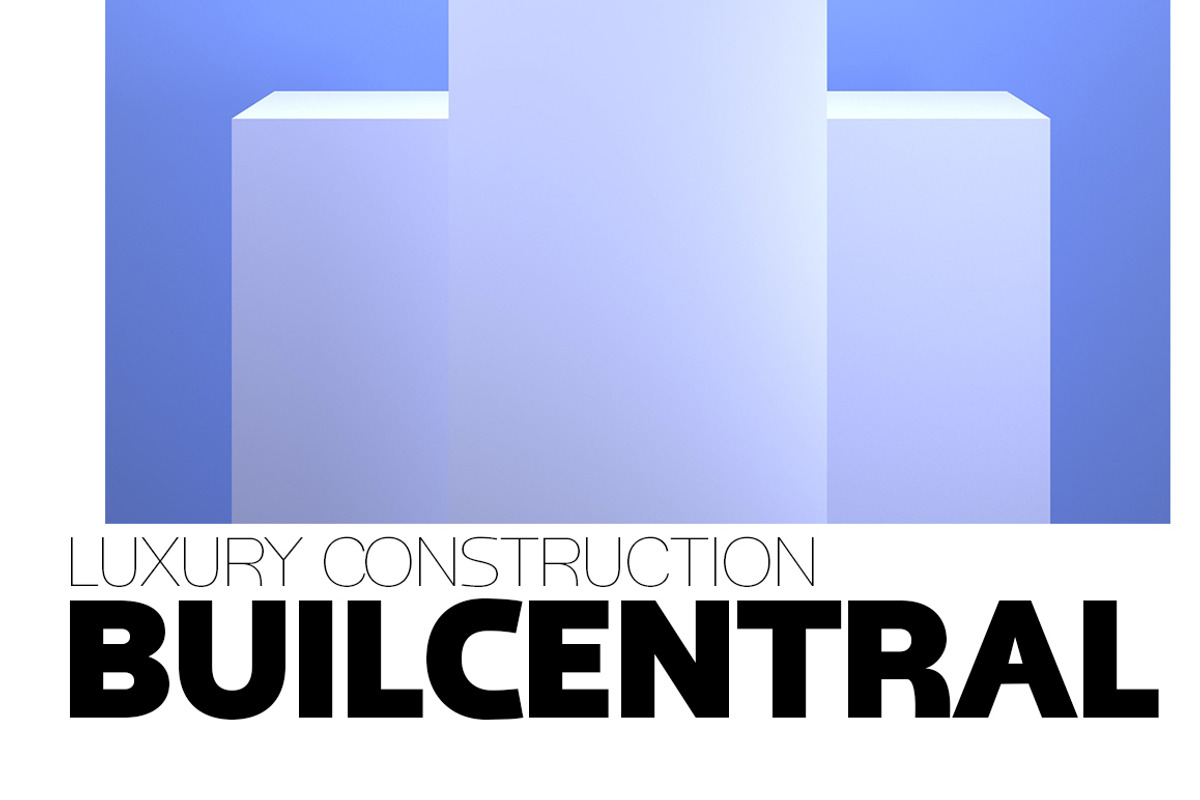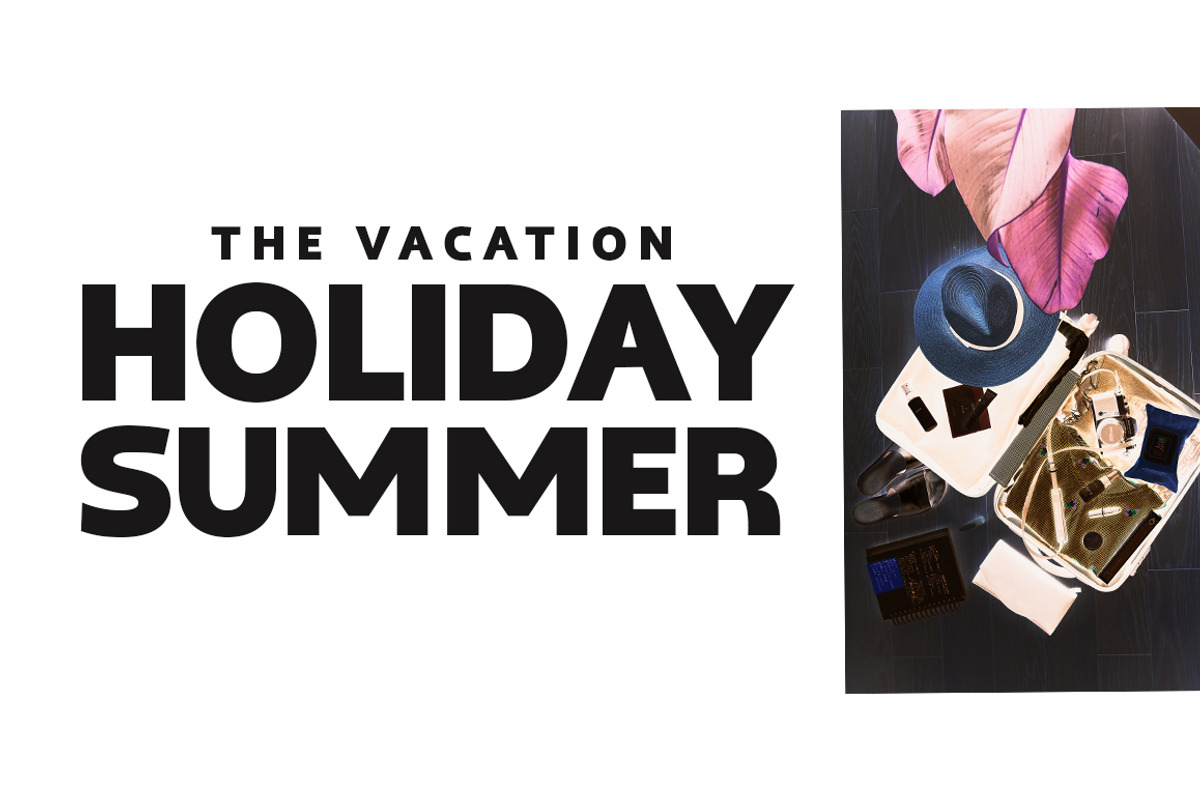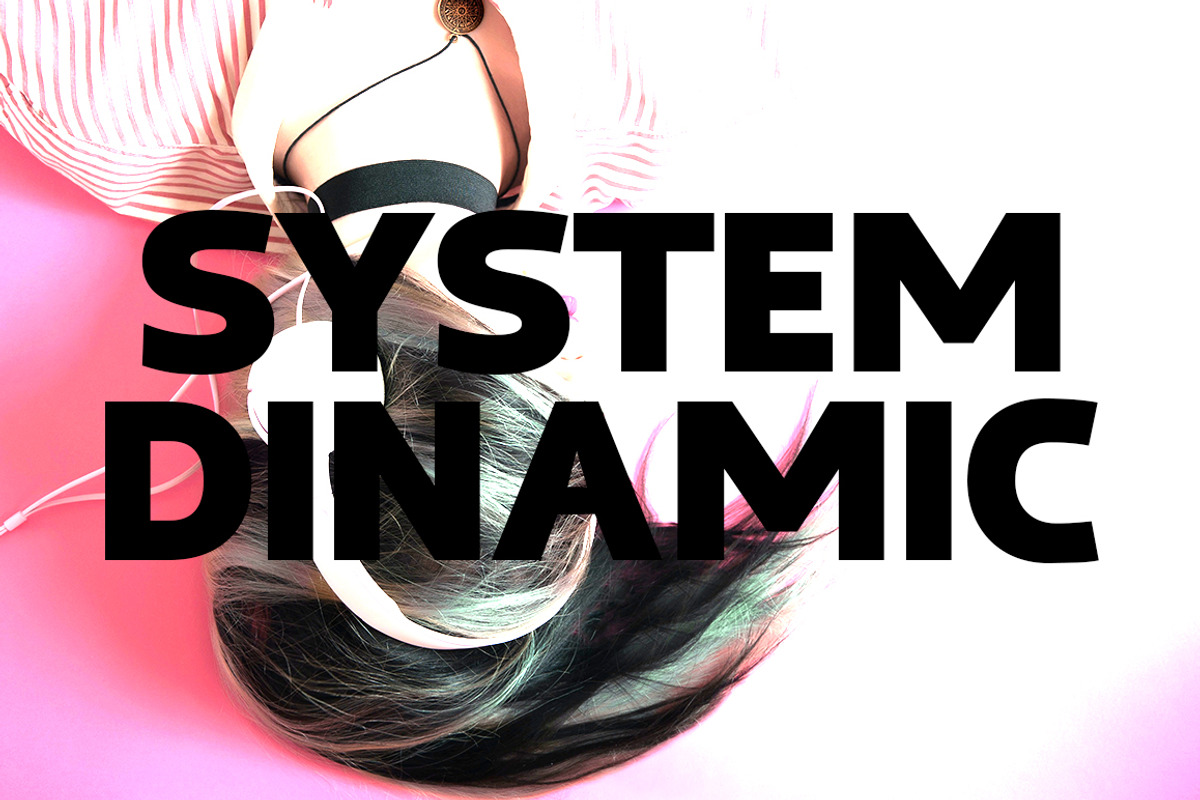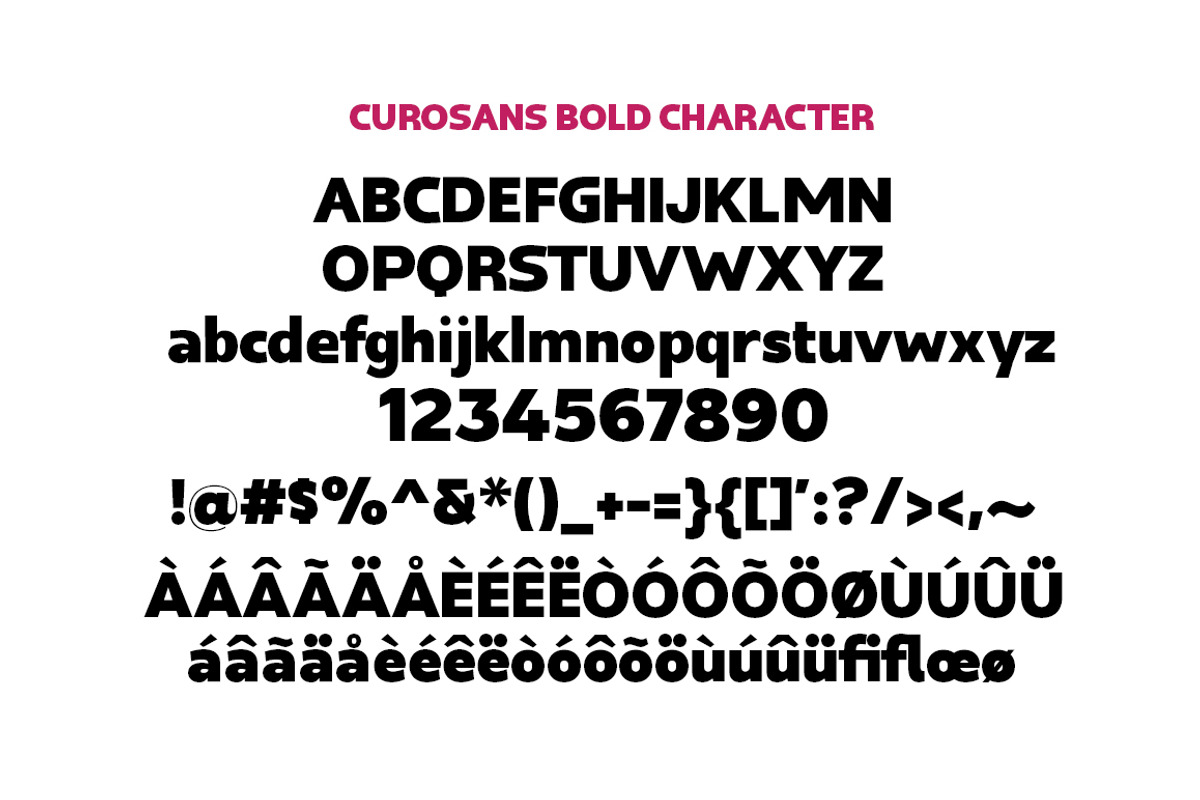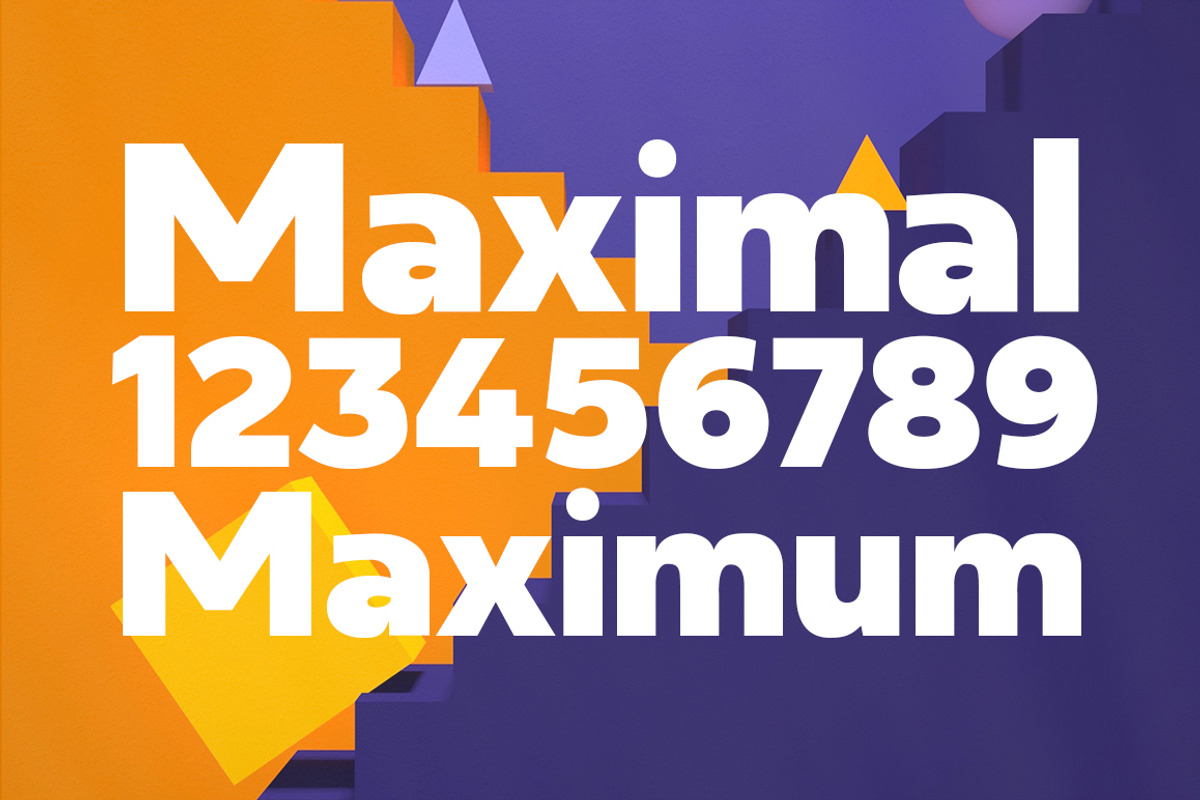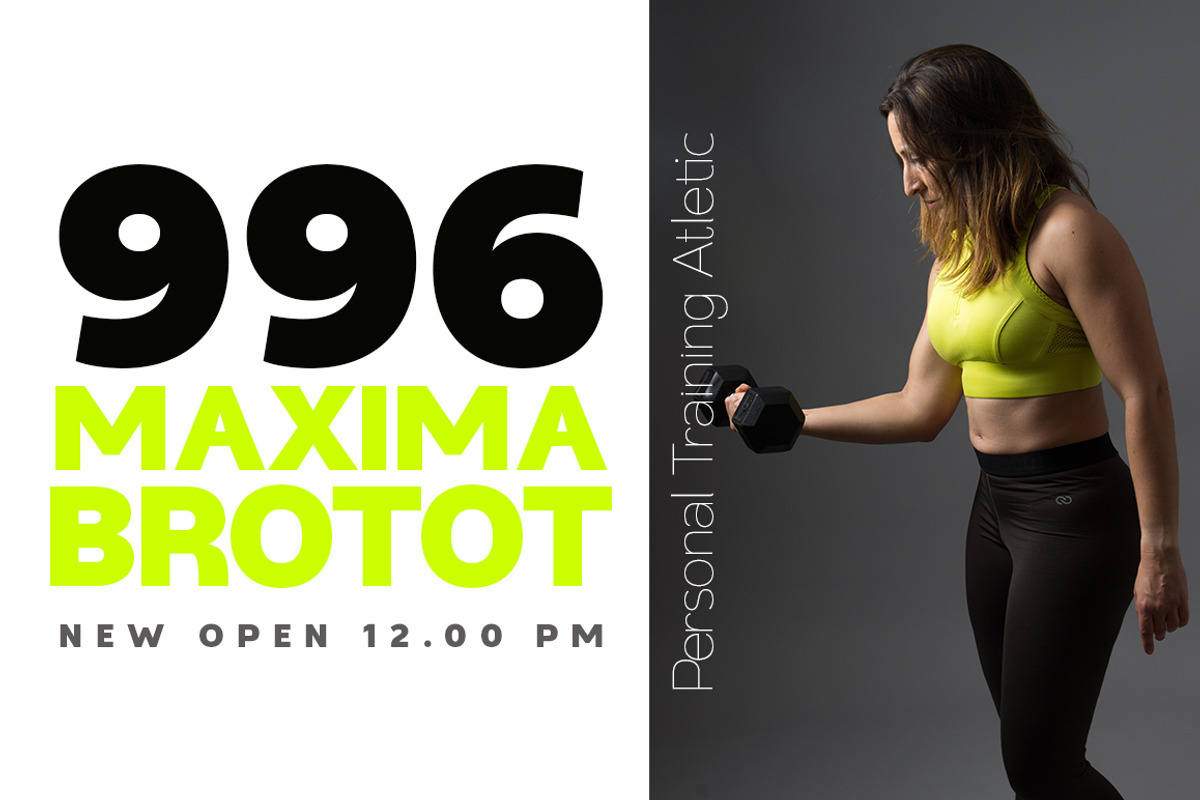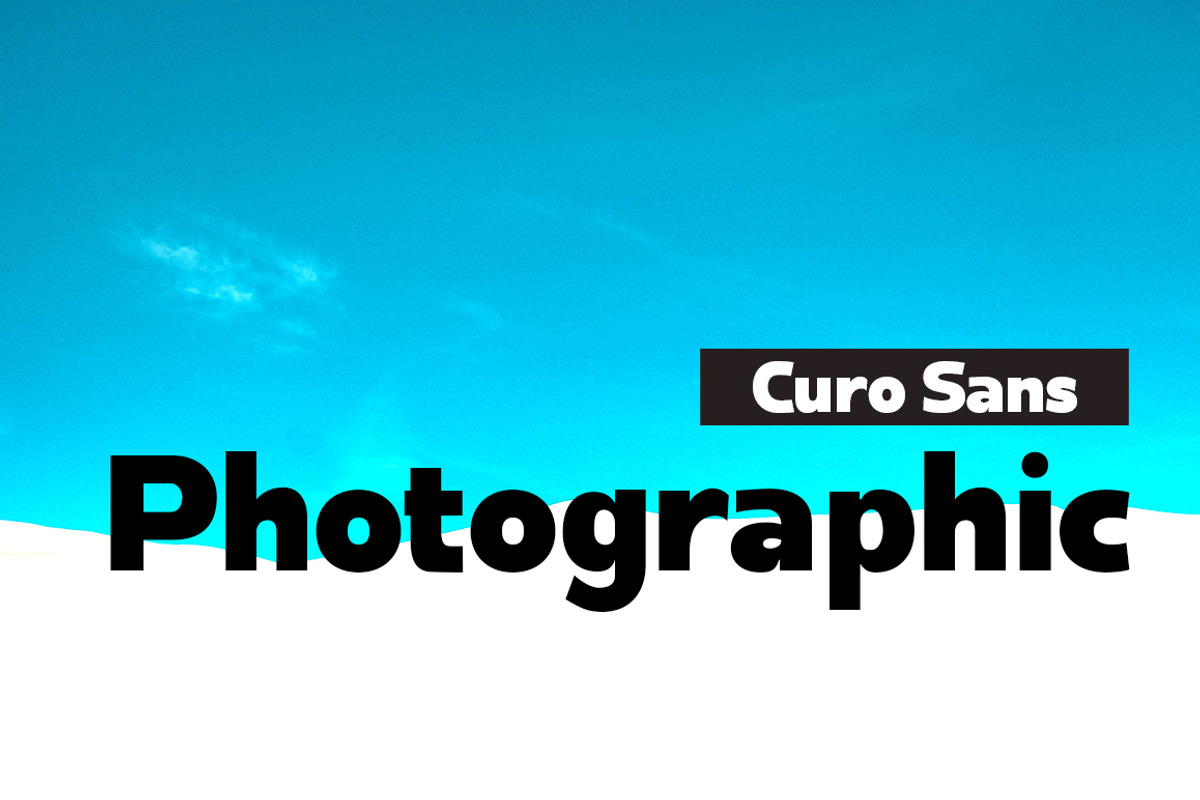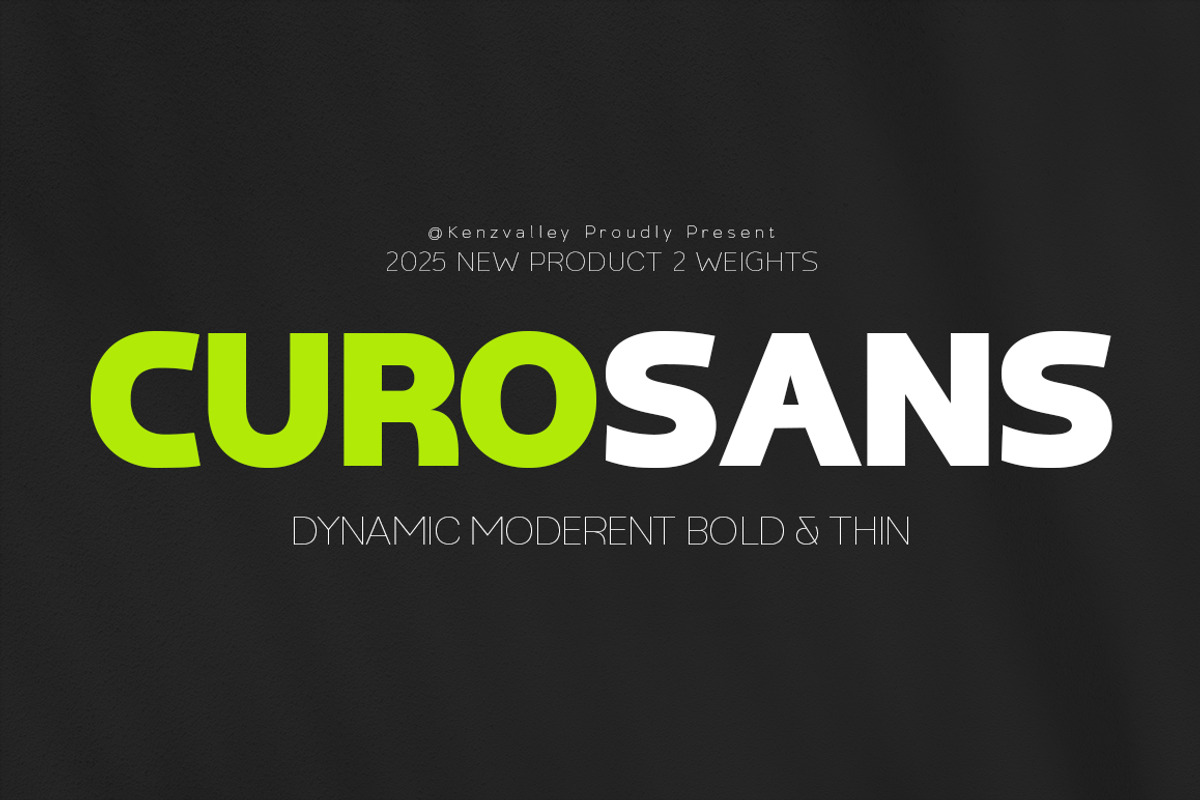
Curo Sans
Curo Sans is a clean family sans publicist style that is absolutely perfect for editorial headlines. The complete font family of upright and italic letters is easy for you to use 18 styles in many projects. This font is complete with symbols and multilingual. This font style is bold, bold, and sleek, making it perfect for editorial, web, posters, t-shirts, and magazine covers. . etc
Curo Sans exudes character but is still useful thanks to its restrained geometric styling and modern construction.